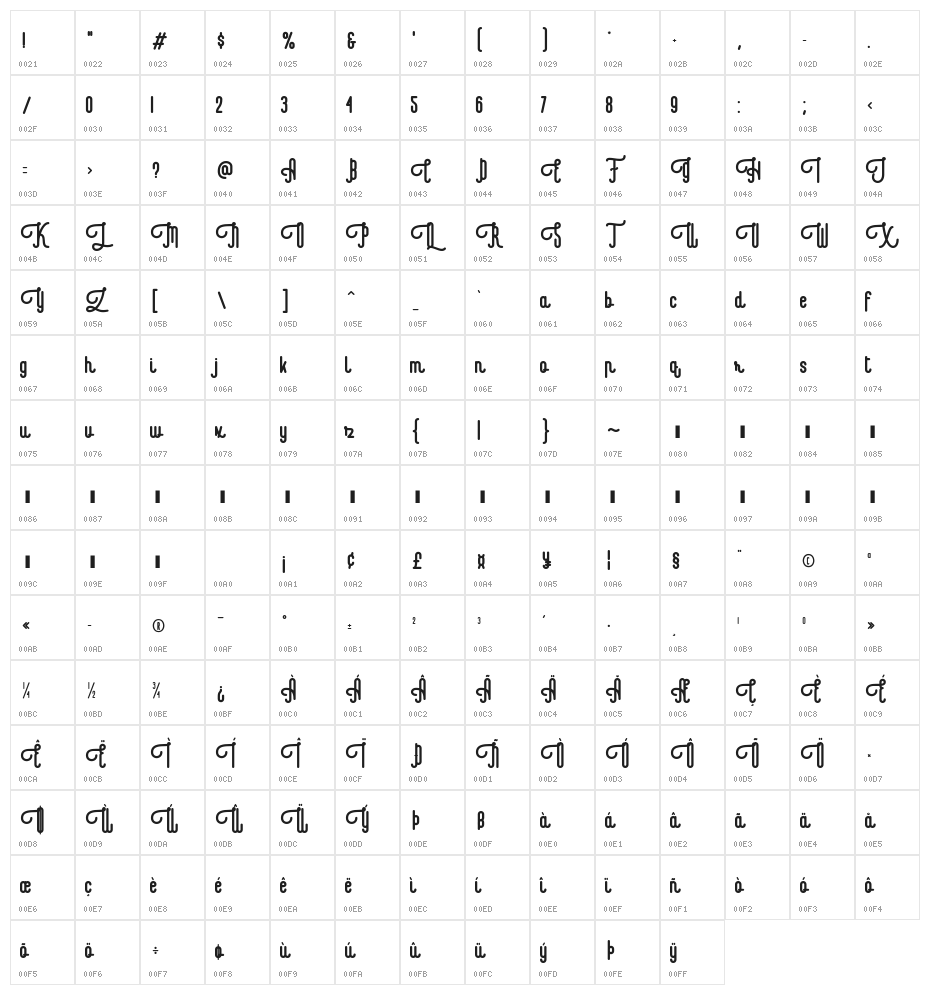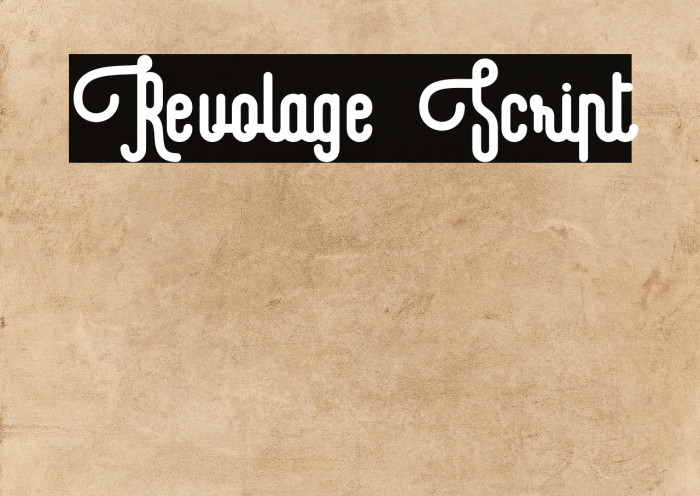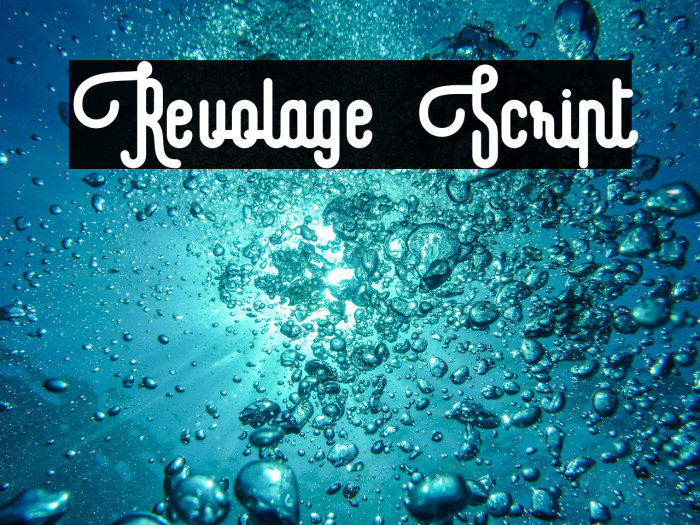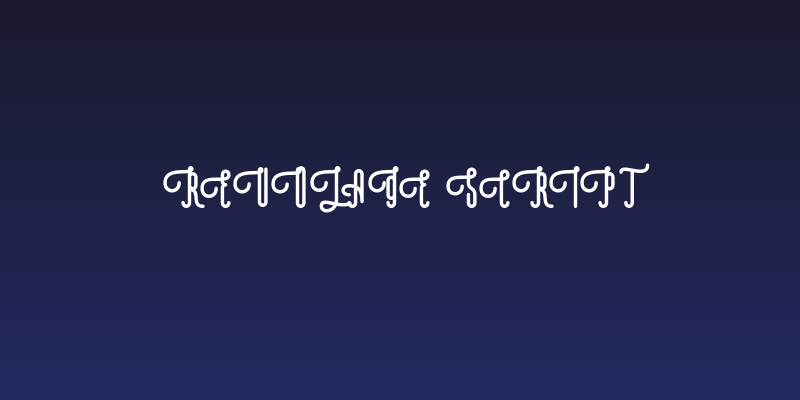
Revolage Script Font
Revolage Script Description
This font features a unique blend of script and decorative elements, characterized by its flowing, interconnected strokes that create a sense of movement and elegance. The uppercase letters are particularly ornate, with loops and swirls that add a touch of sophistication. The lowercase letters maintain a more straightforward script style, providing readability while still retaining the font's artistic flair. The numerals and special characters are designed to match the overall aesthetic, ensuring consistency across all text elements. This font's distinct style makes it ideal for creative projects that require a touch of elegance and personality.
| Use Case | Logos, Invitations, Decorative text |
| Proposed Projects | Ideal for wedding invitations, greeting cards, branding, and logo design. |